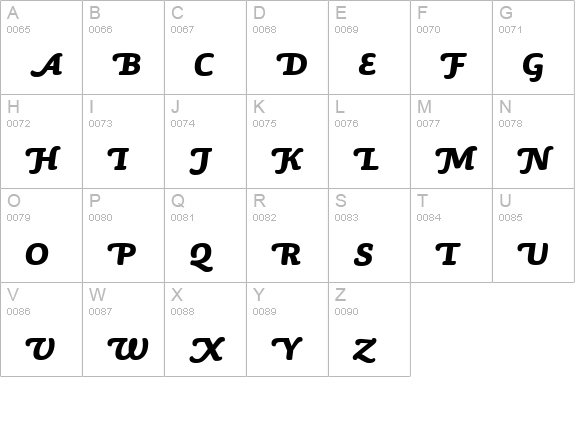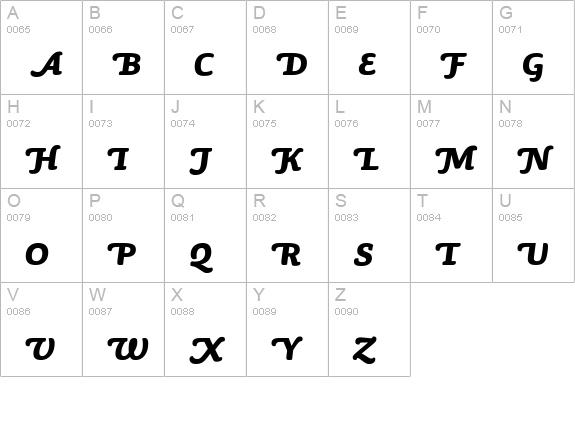
Sauna-BoldItalicSwash is a captivating and elegant font that exudes a sense of sophistication and flair. Its bold and italicized swash style adds a touch of drama and personality to any design project. This font is perfect for creating eye-catching headlines, logos, invitations, and more. With its unique and artistic swashes, Sauna-BoldItalicSwash stands out from the crowd and grabs attention effortlessly. The flowing curves and delicate strokes of this font make it a true masterpiece. It adds a touch of luxury and exclusivity to any design, making it perfect for high-end branding and marketing materials. But what makes Sauna-BoldItalicSwash even more exceptional is that it is completely free. Yes, you heard that right – this stunning font is freely available to download at FontsMarket.com. Now you can add a touch of elegance to your designs without breaking the bank. Whether you are a professional designer or someone who simply enjoys exploring typography, Sauna-BoldItalicSwash is a must-have in your font collection. Its versatility and beauty make it suitable for a wide range of projects, from print to digital media. So why wait? Download Sauna-BoldItalicSwash today and transform your designs into works of art. Let this free font help you make a bold statement and leave a lasting impression on your audience.